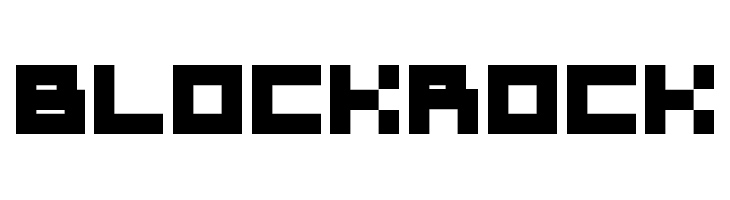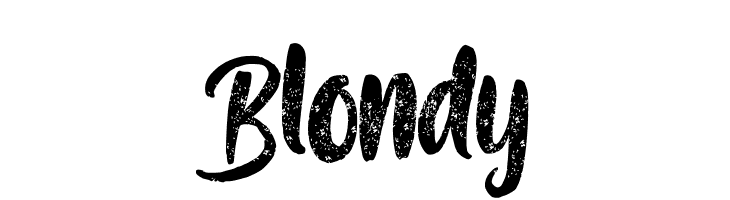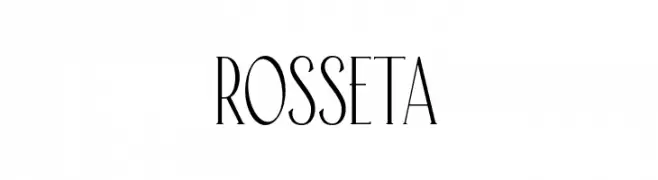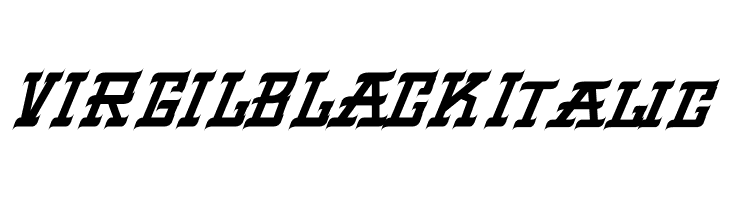
An elegant, high-contrast serif font with elongated characters.
A bold, playful script font with a handwritten feel and dynamic style.
A whimsical, handwritten script with tall, narrow, and flowing letterforms.
Abstract, hand-drawn script with irregular, ancient-like forms.
A flowing, cursive script font with elegant, interconnected strokes.
A bold, decorative font with a distressed, vintage style.
A bold, flowing script font with dynamic brush stroke aesthetics.
A bold, energetic script font with a playful, handwritten style.
A pixelated, grid-based font with a modern, digital aesthetic.
A graceful and elegant script font with flowing, connected strokes.